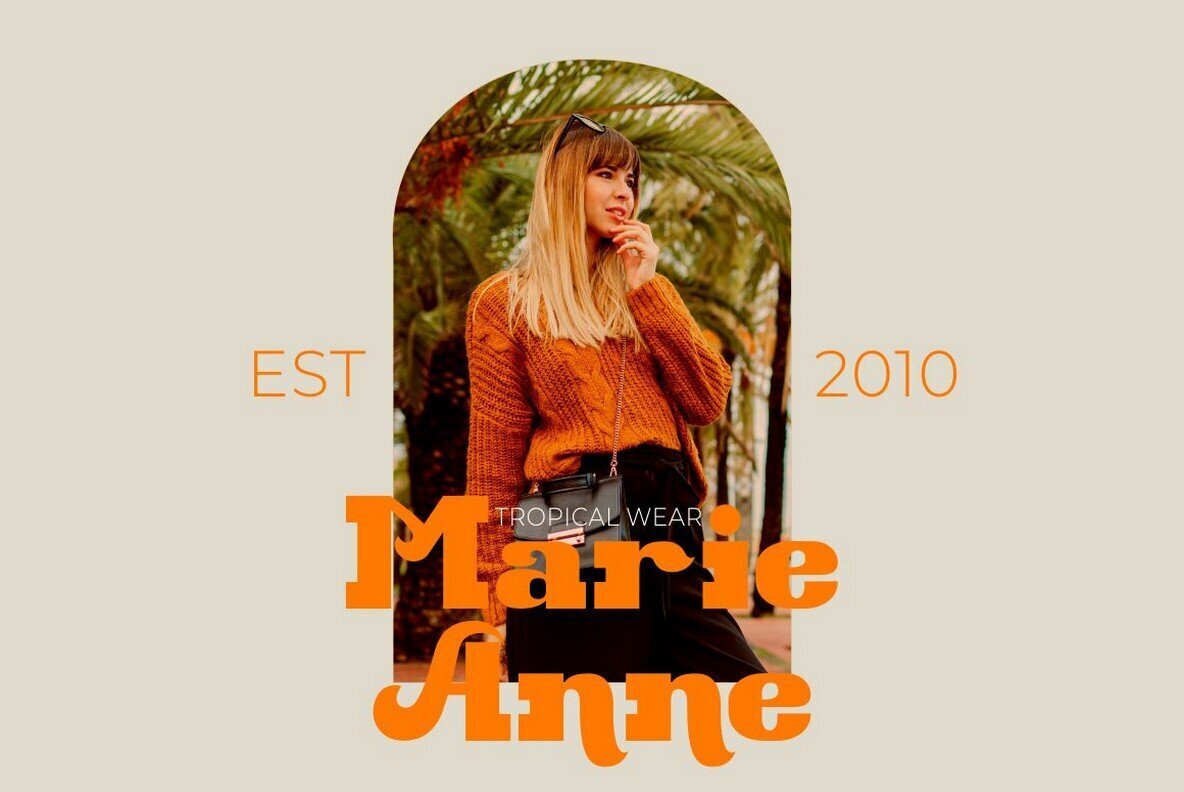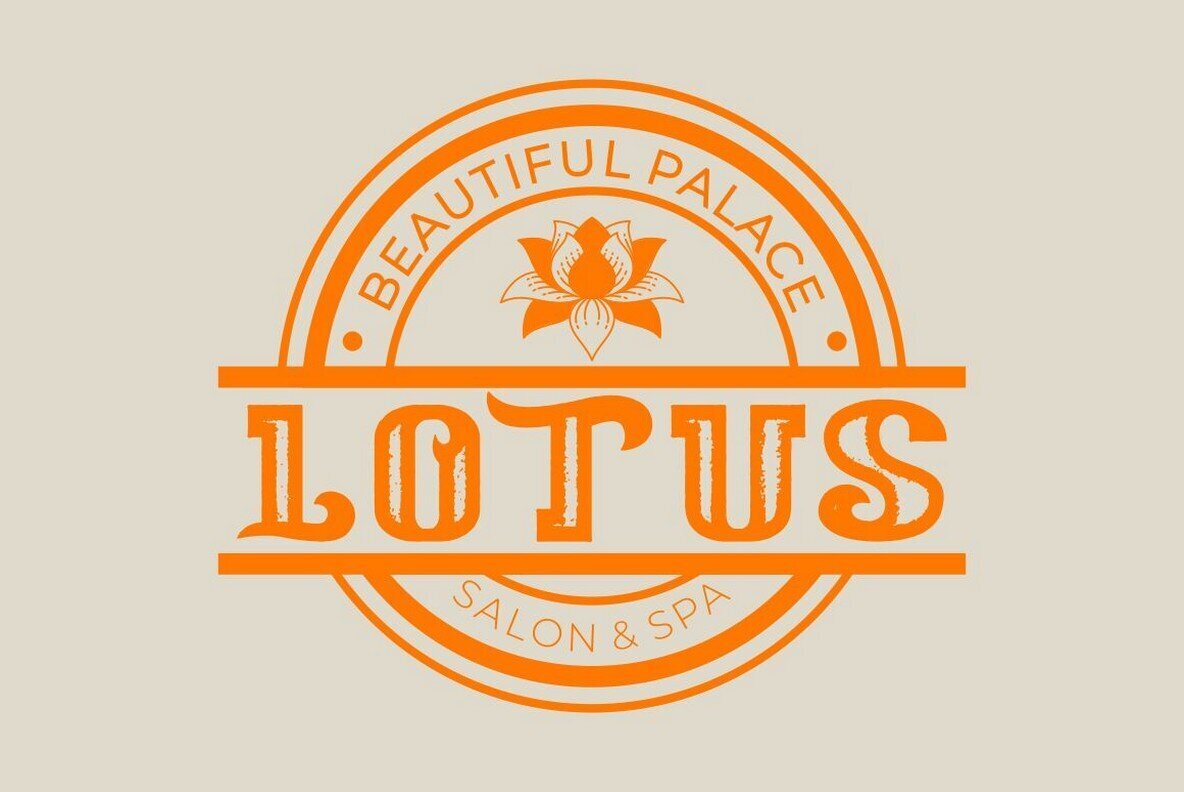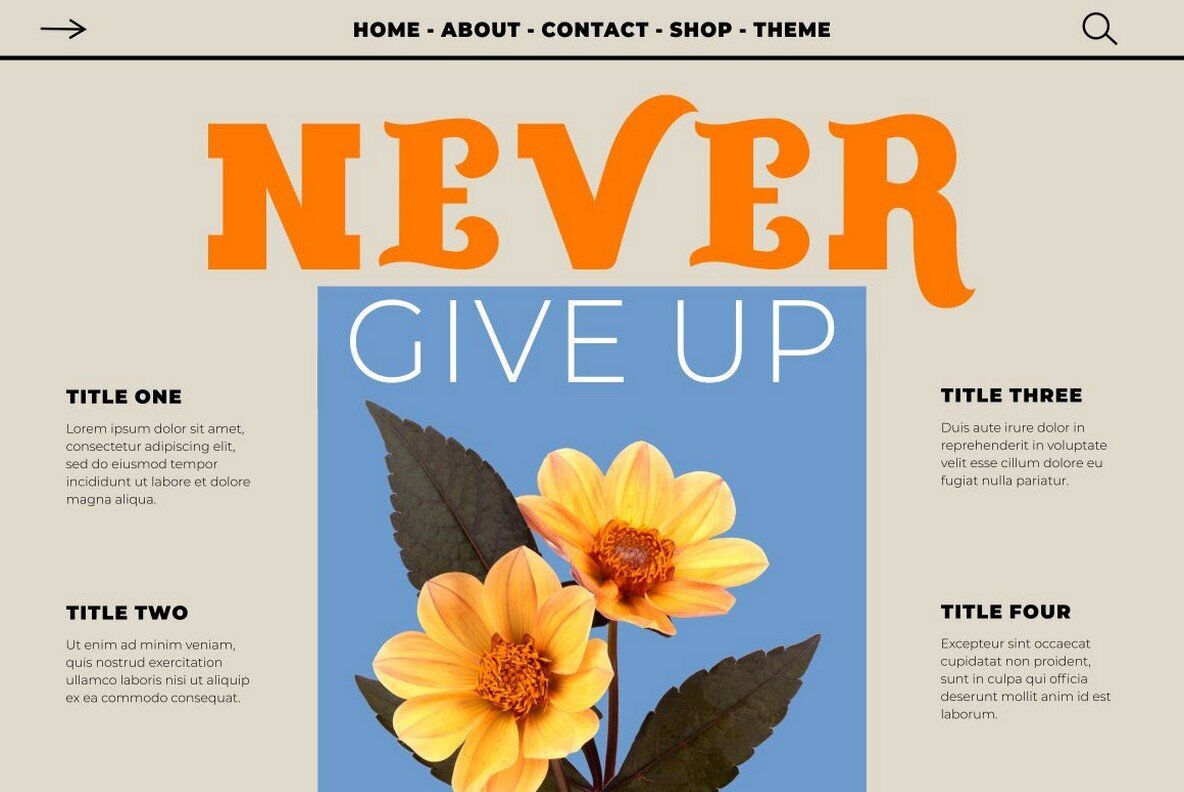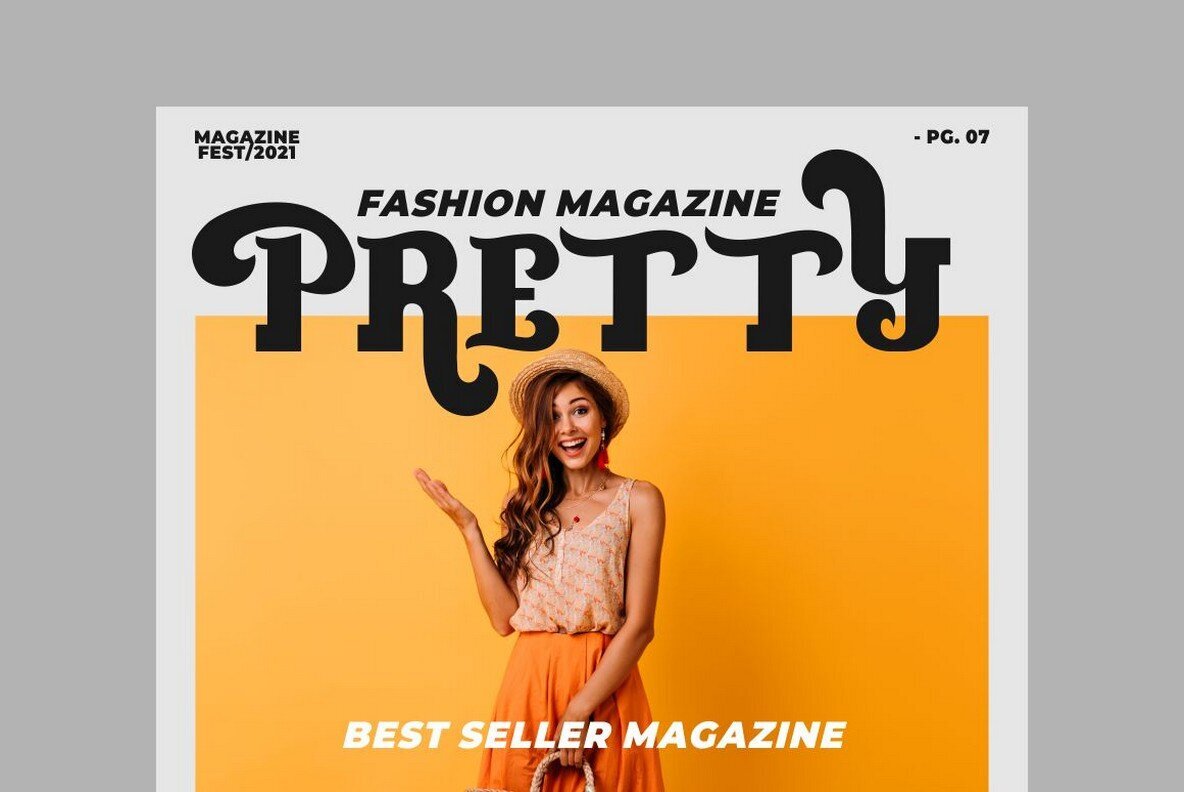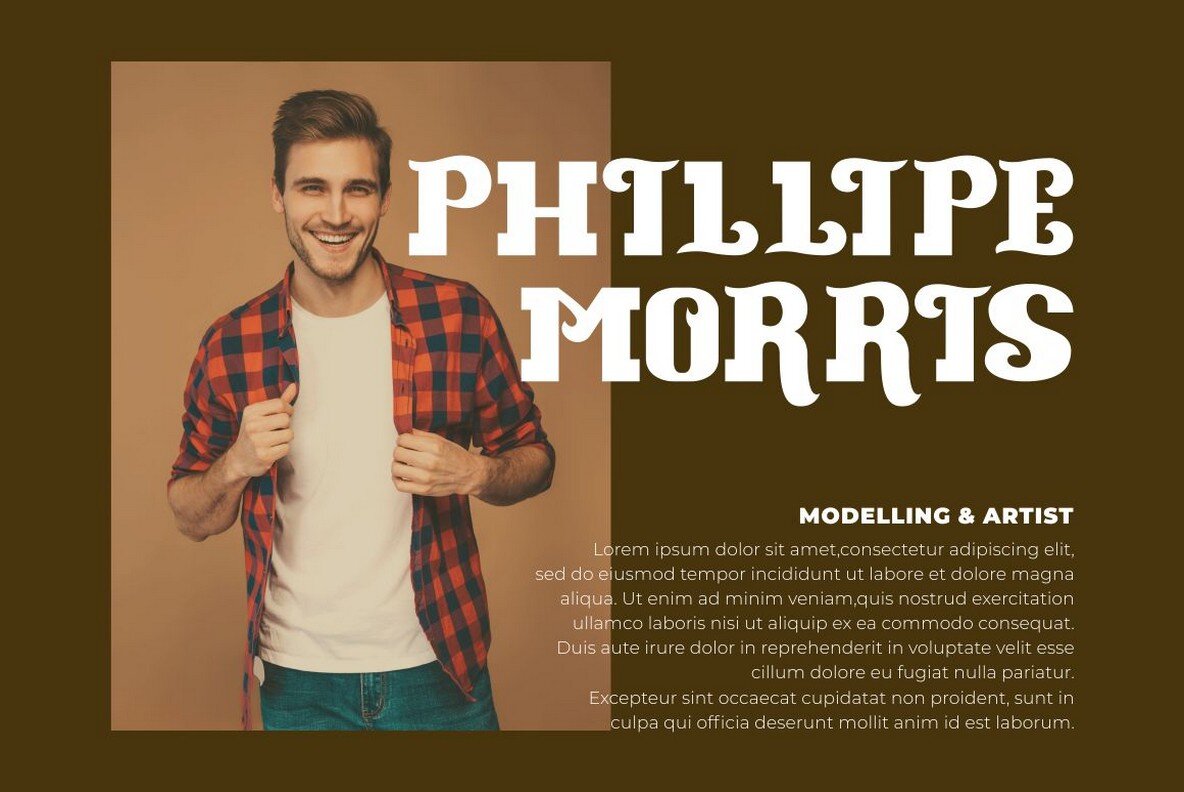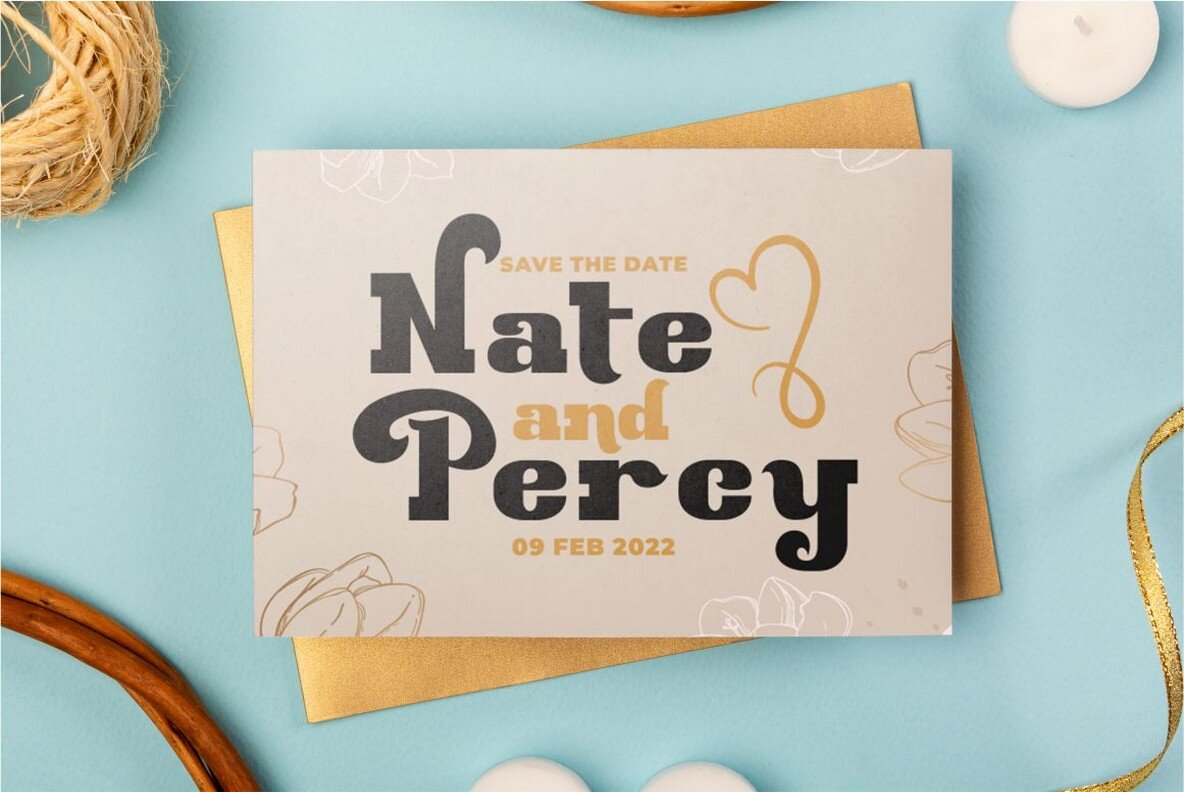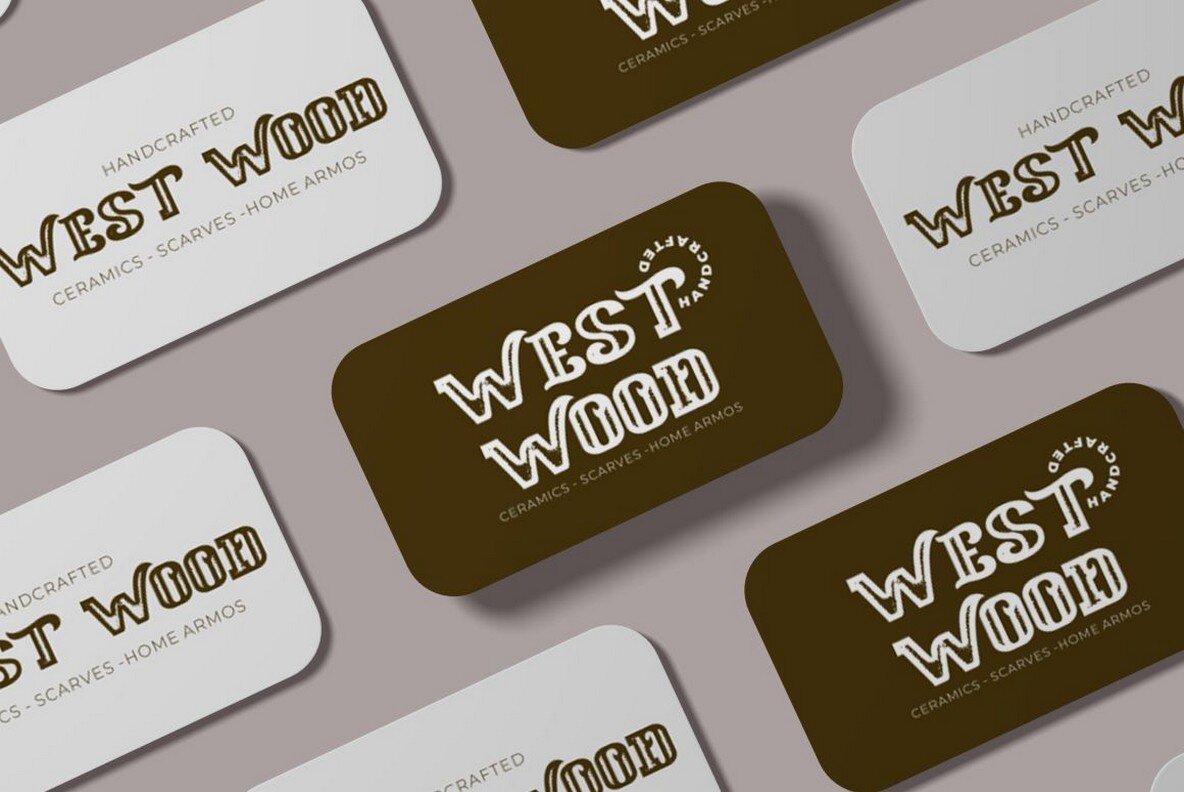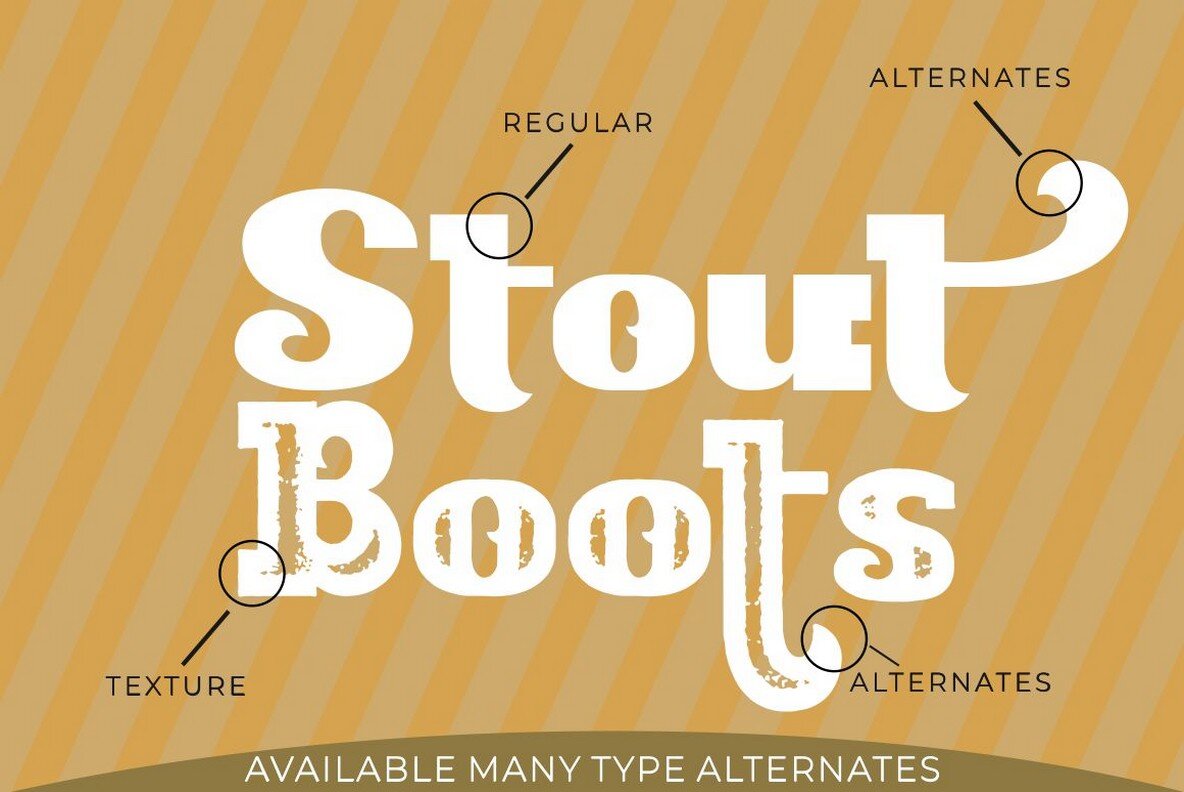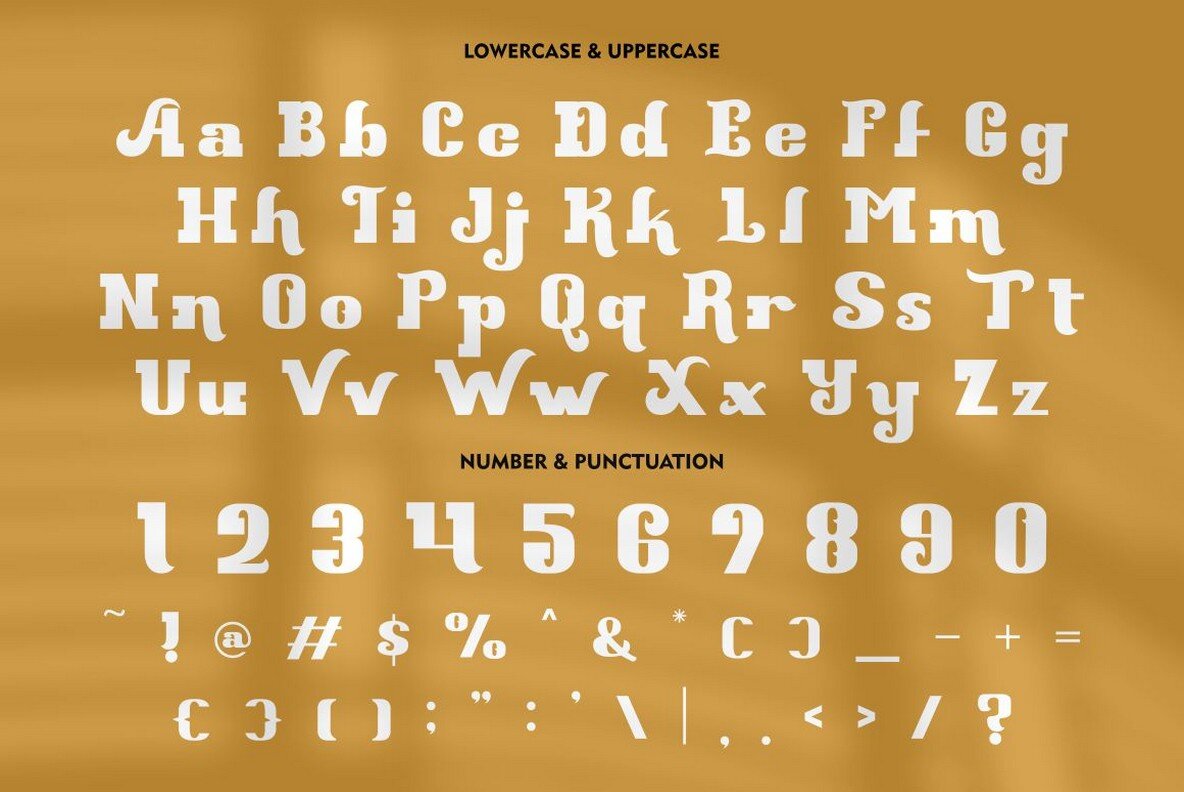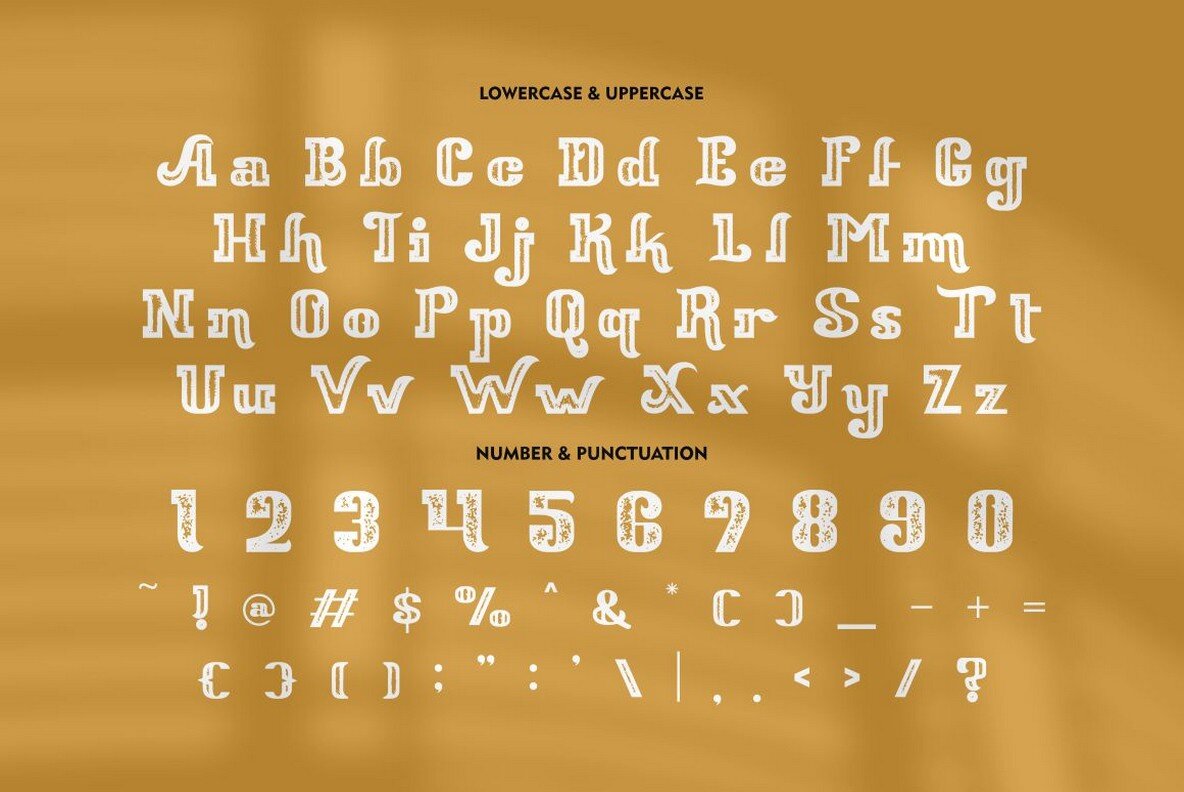
Stout Boots Font
Stout Boots Regular
Stout Boots Texture
Stout Boots seamlessly merges retro charm with contemporary boldness. This serif's robust character is softened by its gentle curves, delivering a unique aesthetic ideal for diverse applications. With features like swash, stylistic, and titling alternates paired with standard and discretionary ligatures, Stout Boots serves as a versatile asset in any designer's toolkit. Embrace the boldness of Stout Boots for your next project. Whether it's crafting memorable logos, creating engaging blog posts, or designing elegant wedding invitations, the font's thick curves evoke a groovy vibe while its serifs nod to tradition. Features:Stout Boots: Bold Serif with Soft Accents